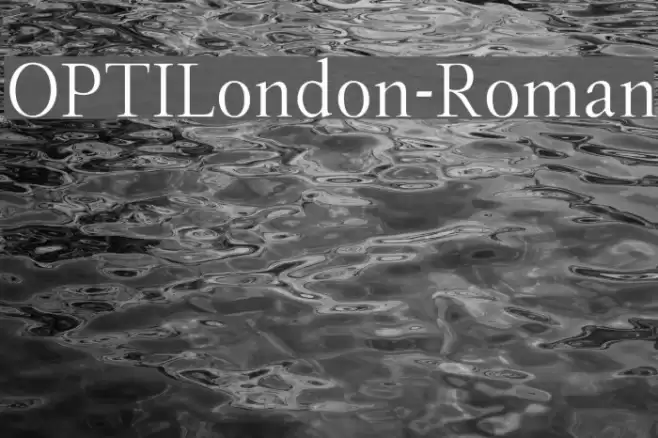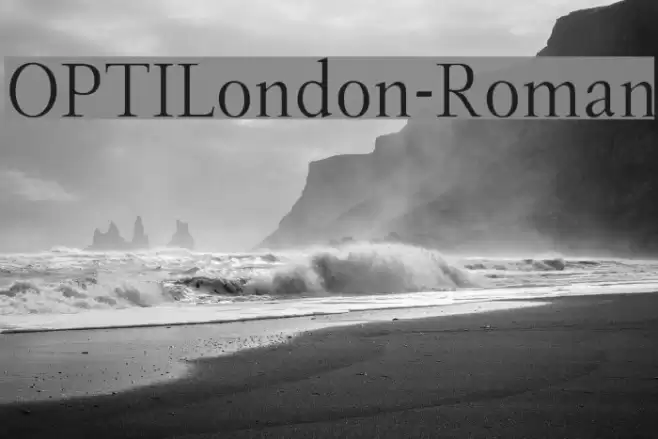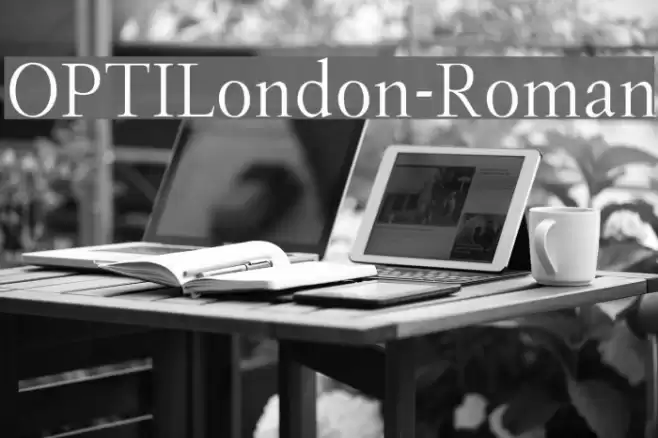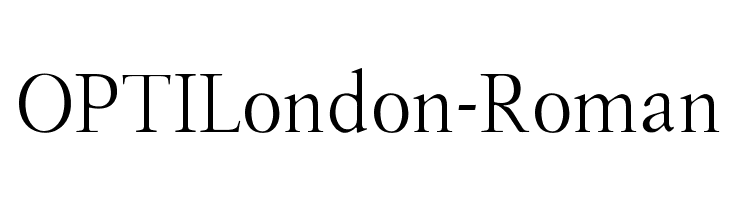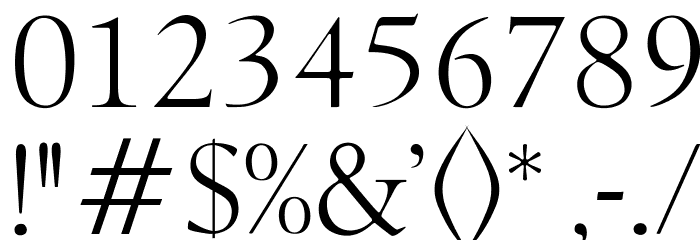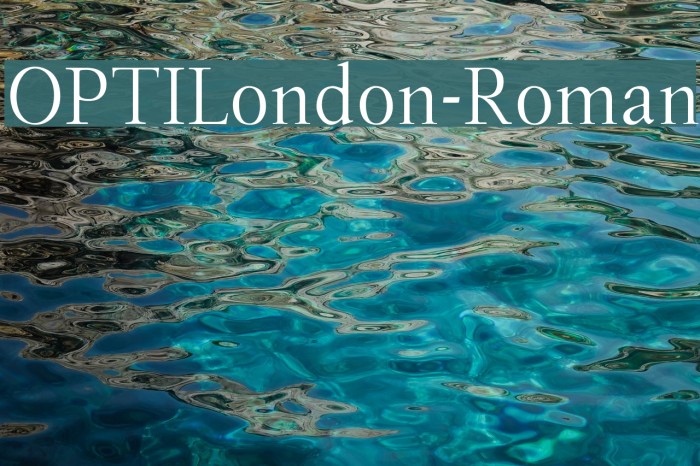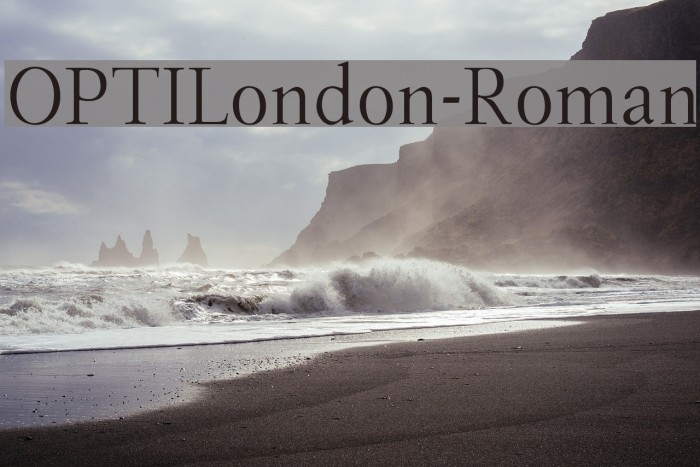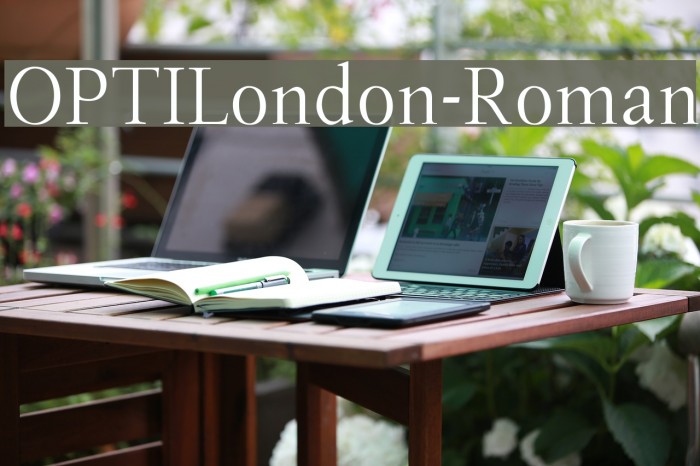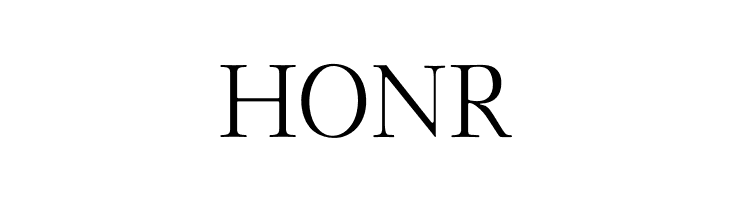
OPTILondon-Roman Font
OPTILondon-Roman Description
This font exudes a classic and sophisticated style, characterized by its elegant serif design. The letterforms are well-proportioned with a moderate contrast between thick and thin strokes, giving it a refined appearance. The uppercase letters are stately and commanding, while the lowercase letters maintain a harmonious flow. The numerals are clear and balanced, ensuring readability. Special characters are thoughtfully designed, maintaining the overall aesthetic. This font is versatile, suitable for both formal and contemporary applications, making it ideal for a wide range of design projects.
A classic serif font with elegant proportions and moderate contrast from Uncategorized fonts.
- Proposed Projects: Ideal for editorial design, book covers, formal invitations, and branding projects.
- Overall Style: Classic